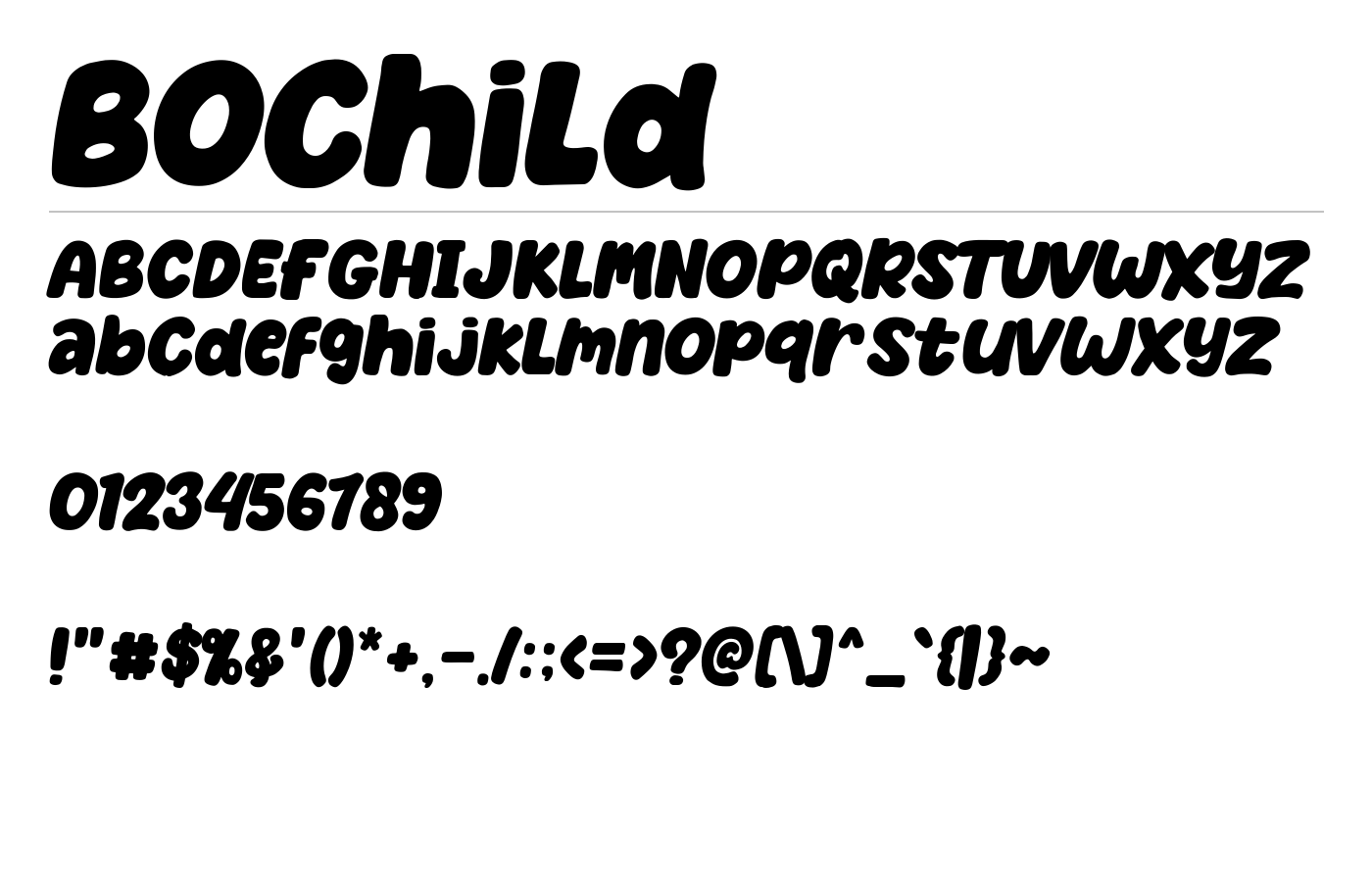
Bochild is a bold, playful sans serif font with rounded, soft edges and a casual, hand-drawn feel. Its thick strokes and slightly condensed letterforms make it eye-catching and friendly, perfect for fun branding, children’s materials, or informal headlines. This font brings a lively and approachable personality to any design needing warmth and charm.
Bochild Font
About Bochild Font
| Font family | Bochild Font |